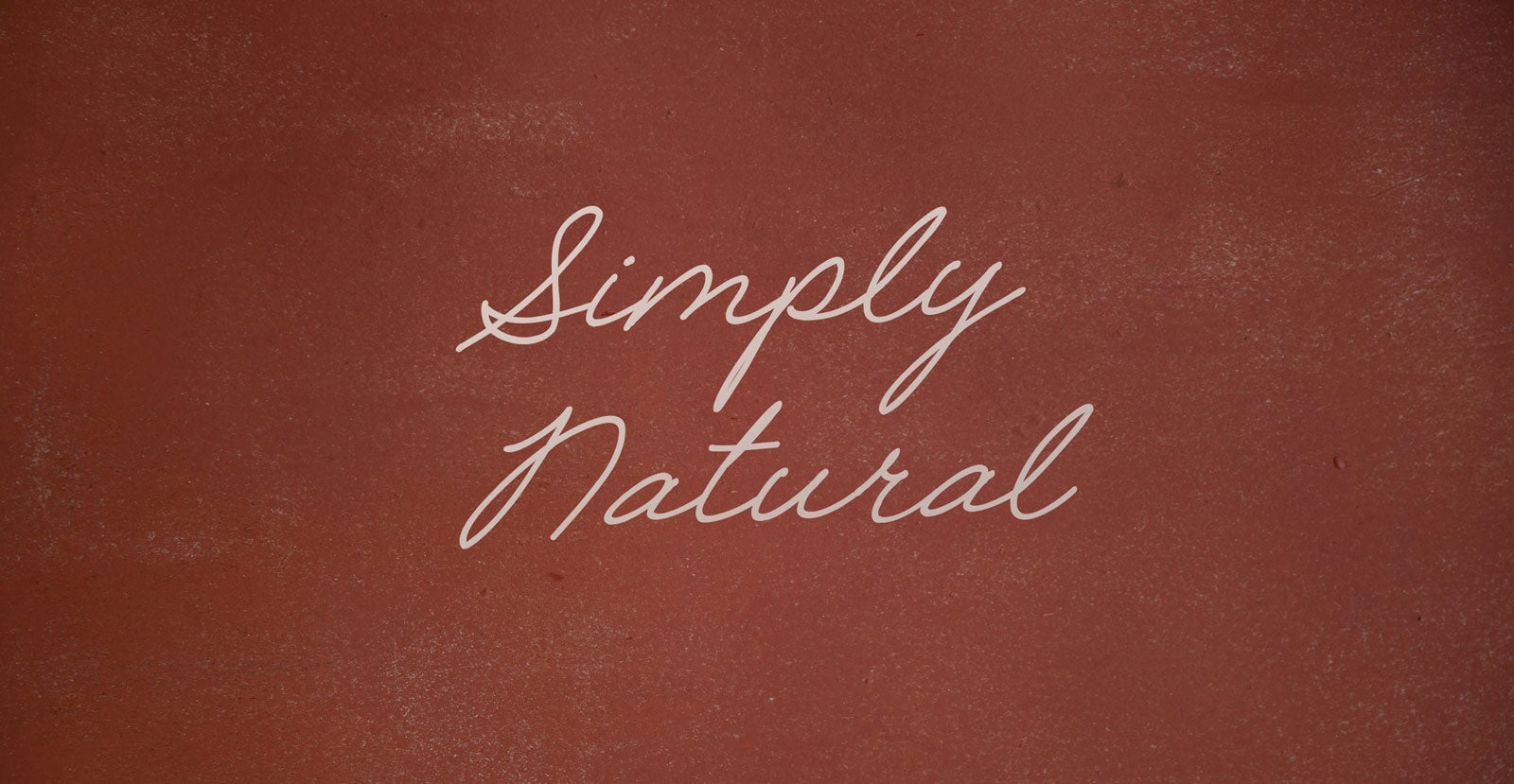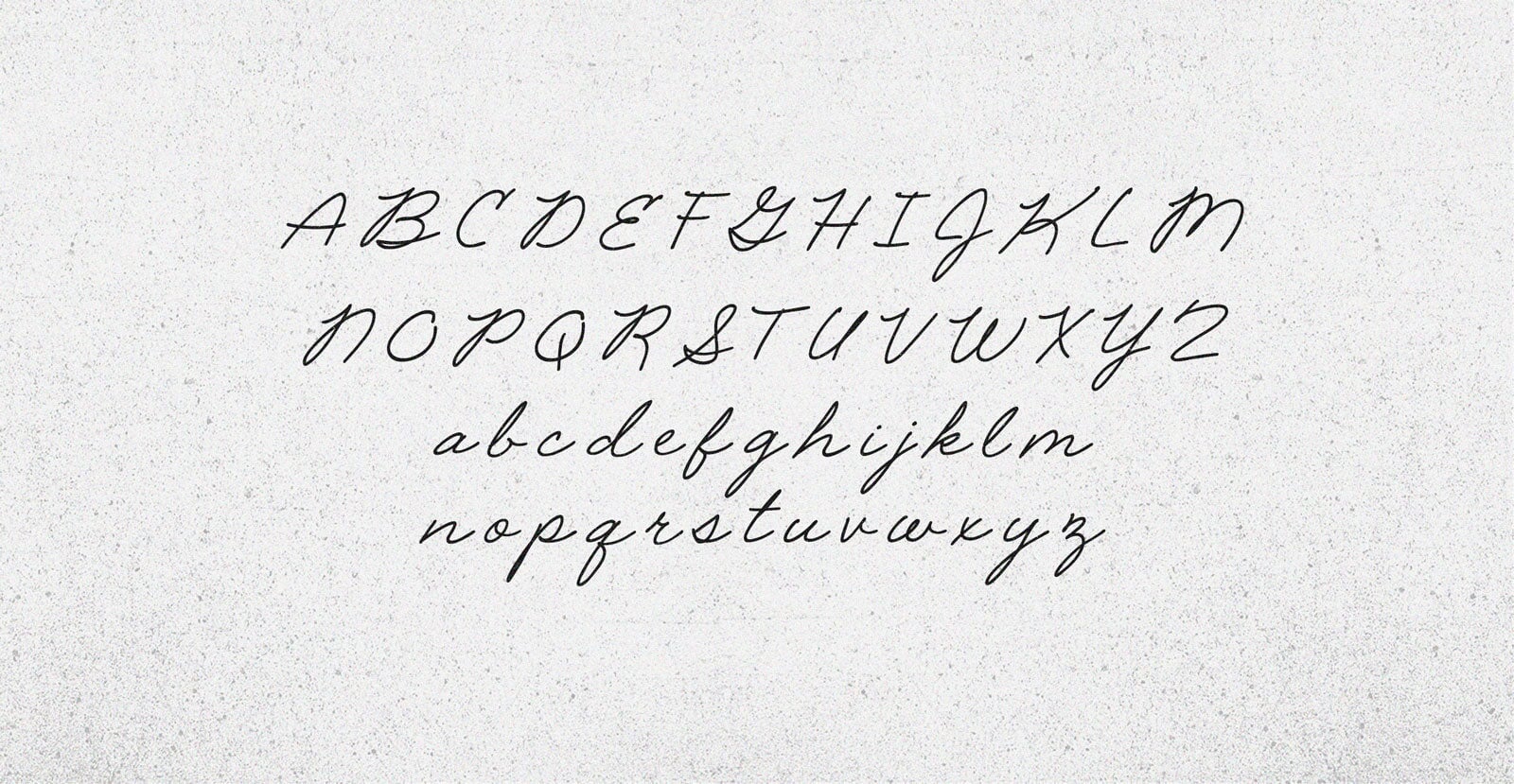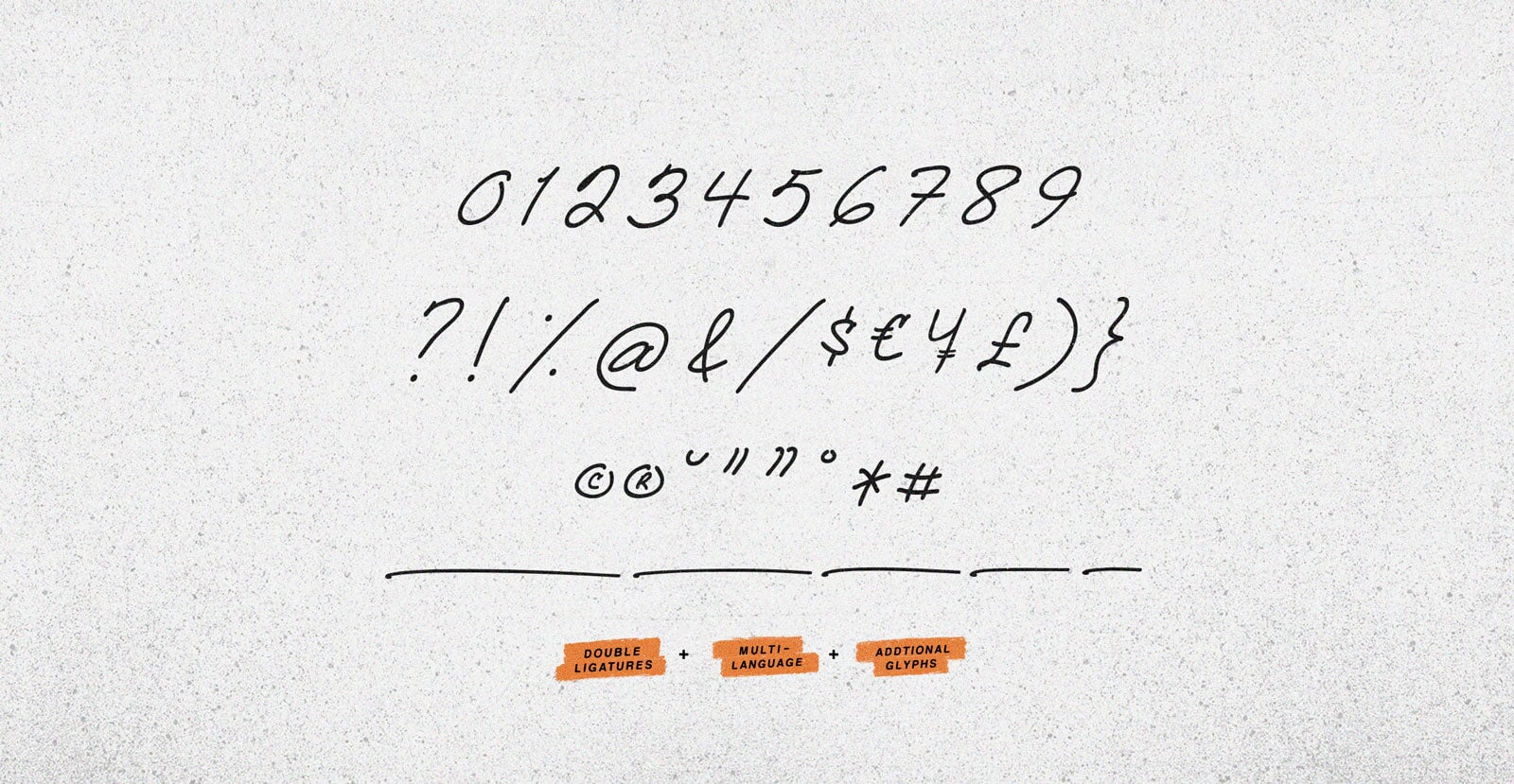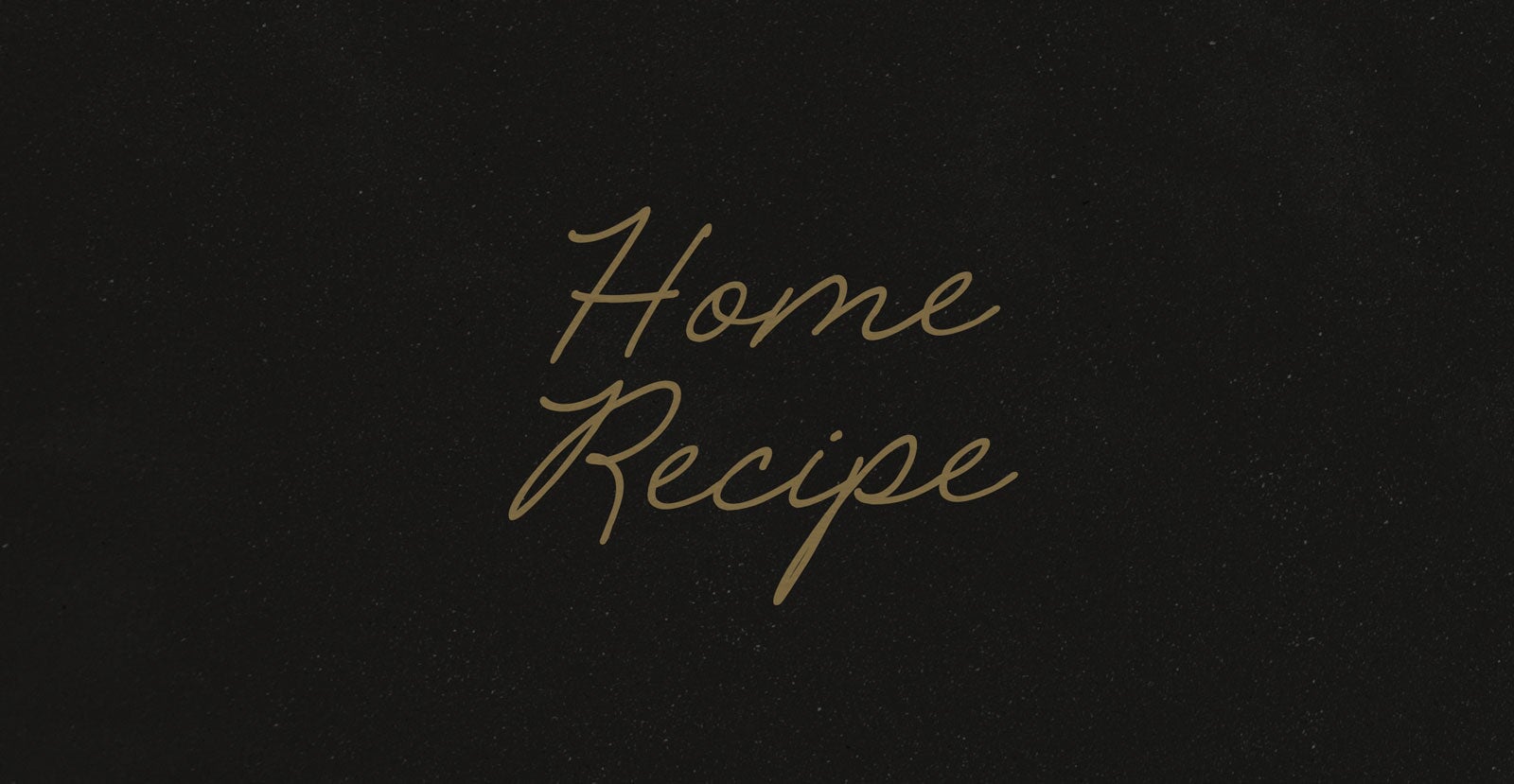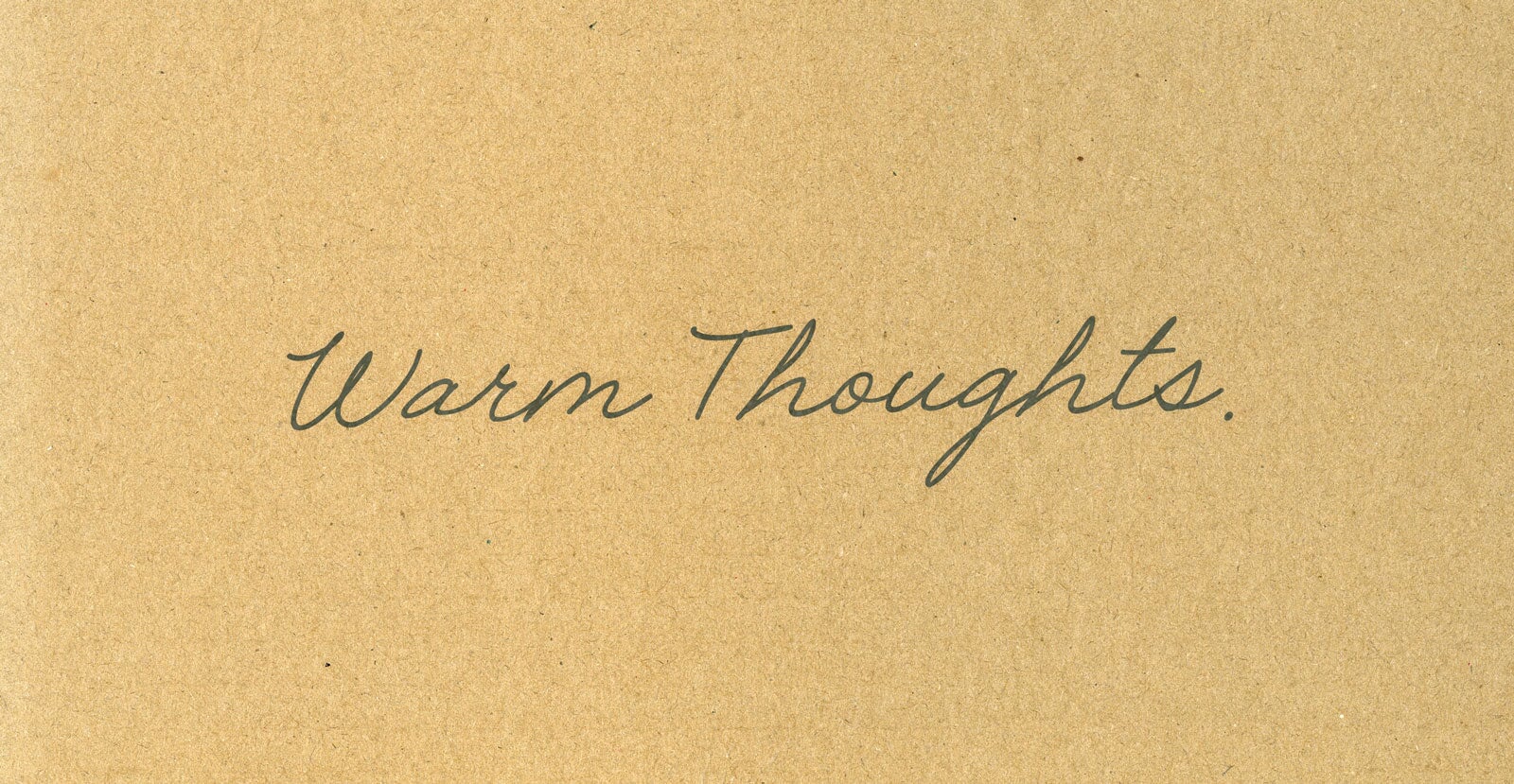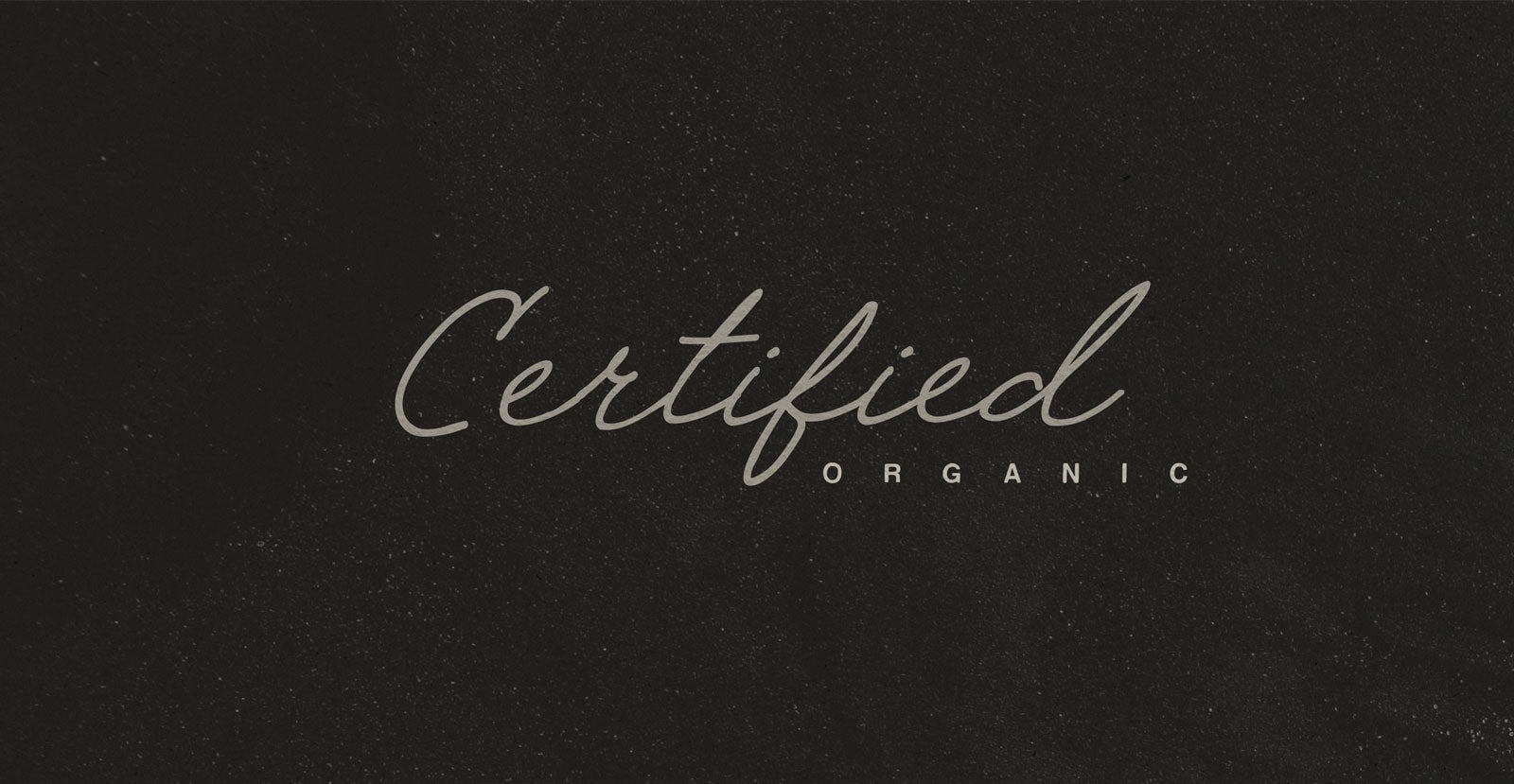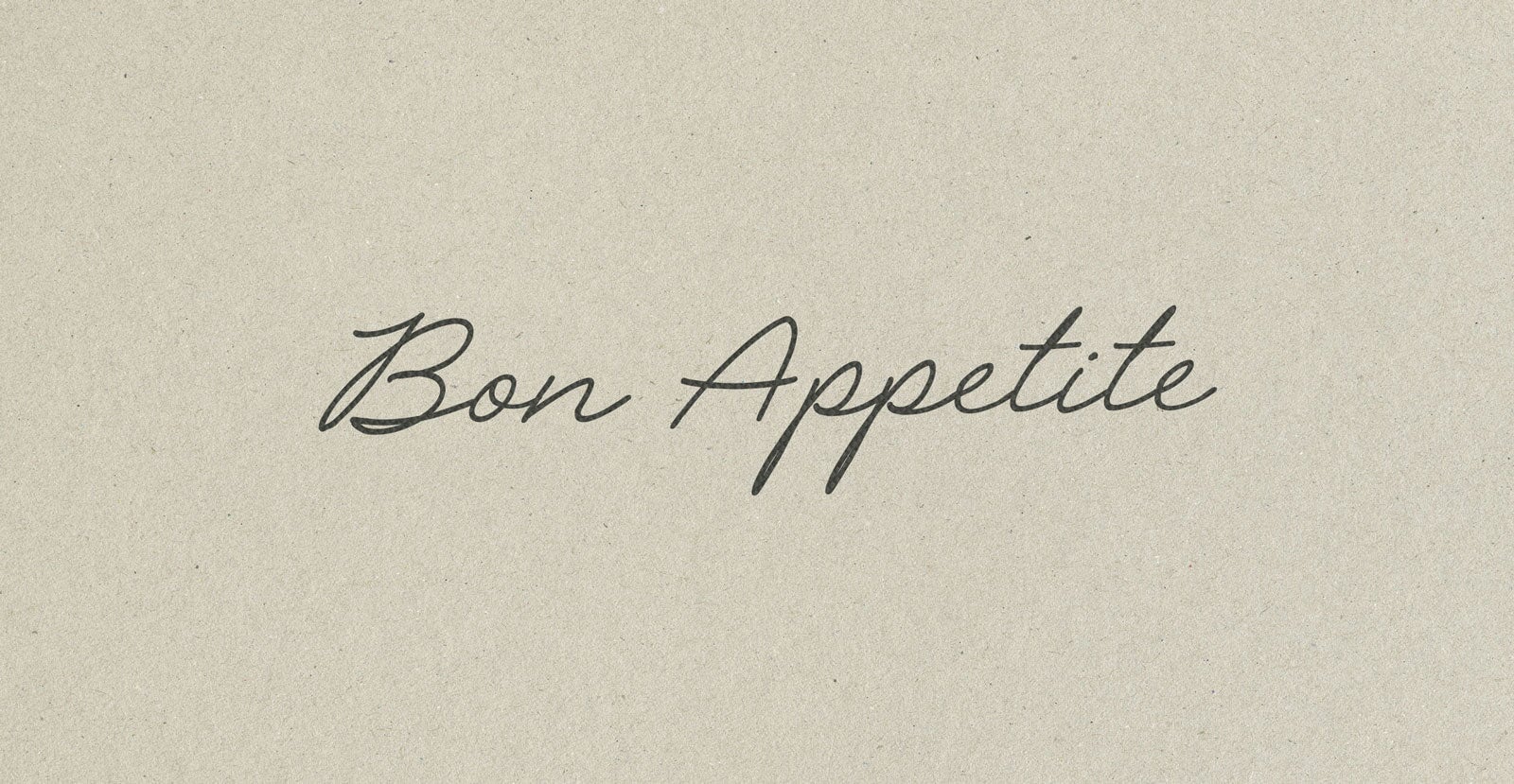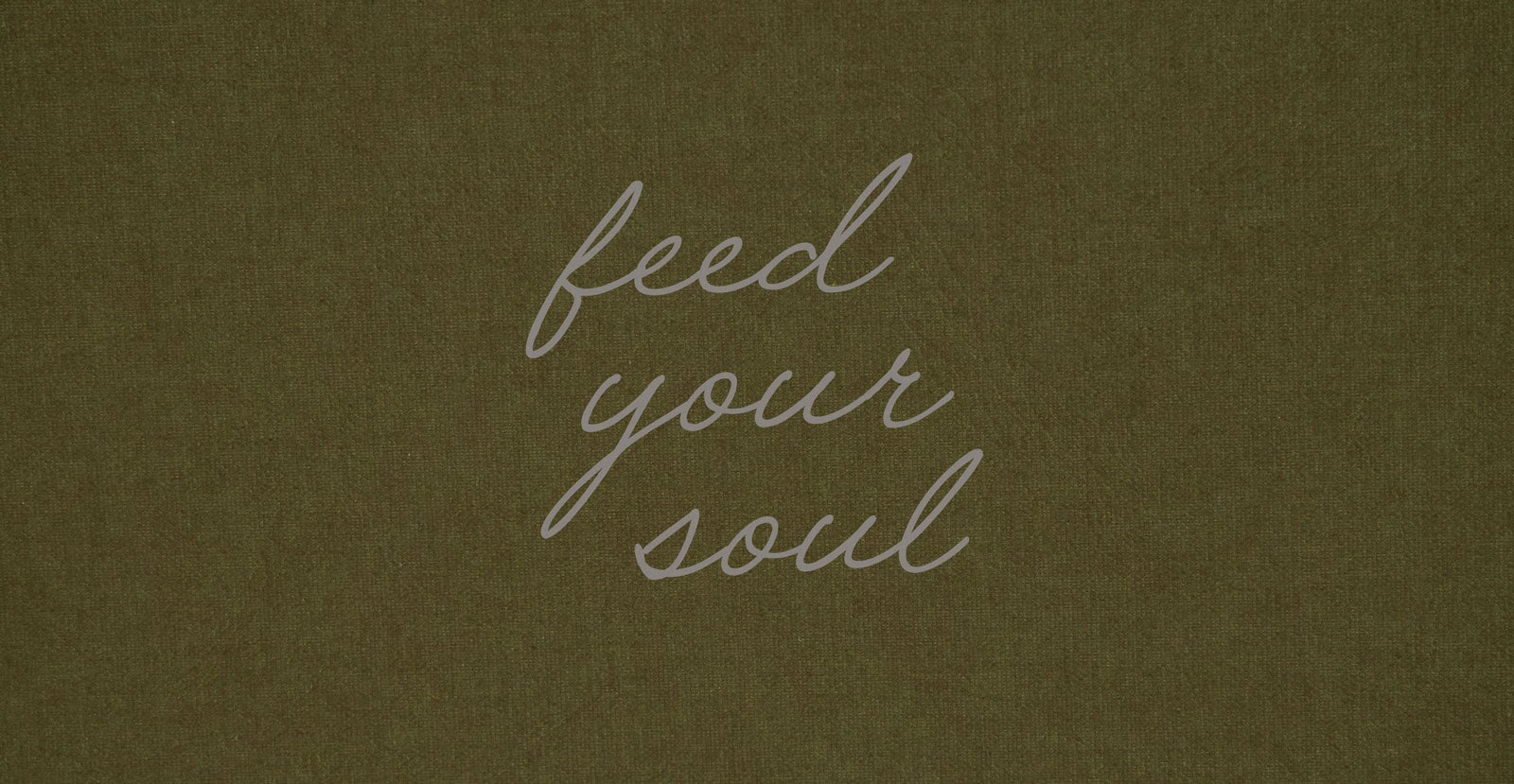
Simply Natural
Handwritten Pen Script Font
As ordinary as they come. He follows the usual routine, keeps things simple, and never strays too far from the norm. But every now and then, he does something just a little different—just enough to make you wonder.